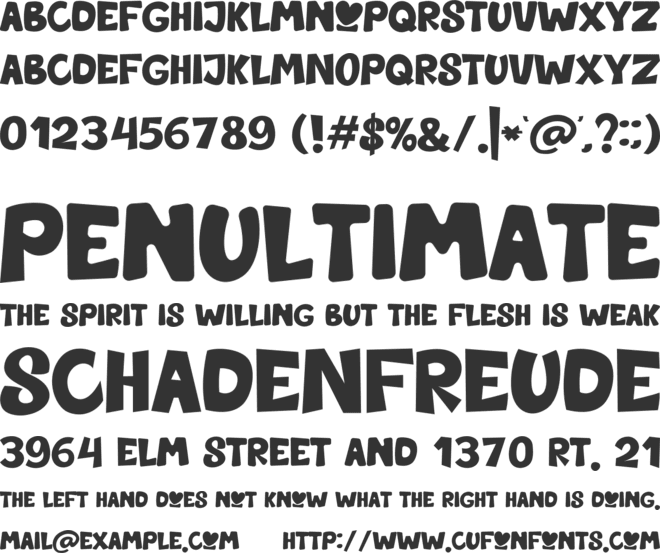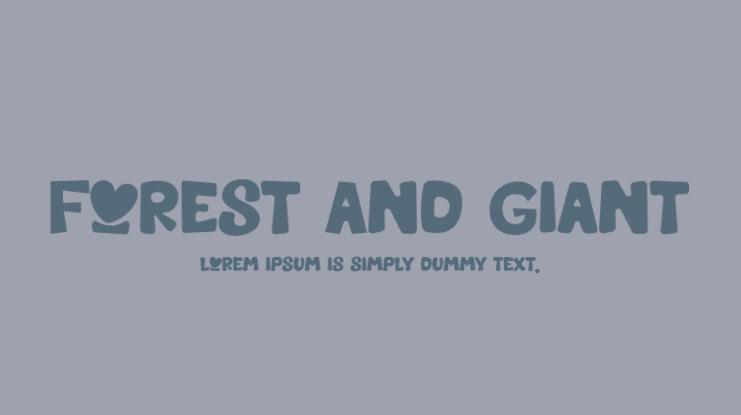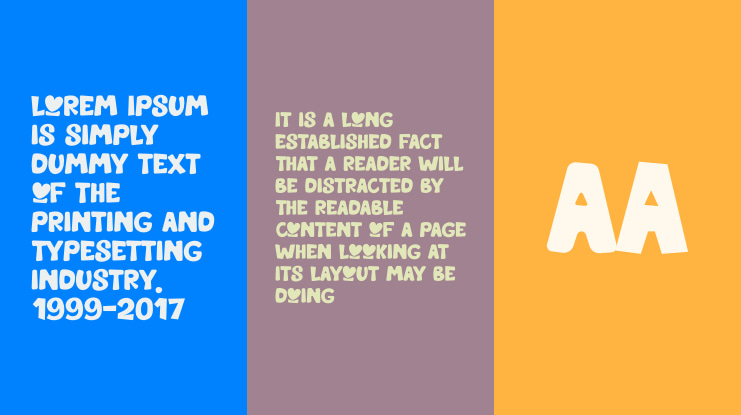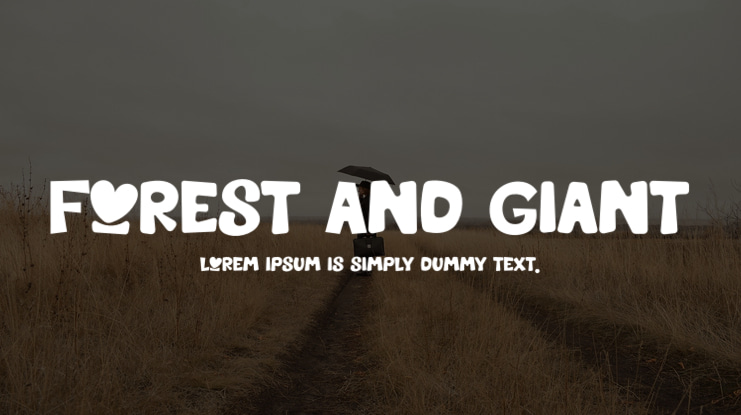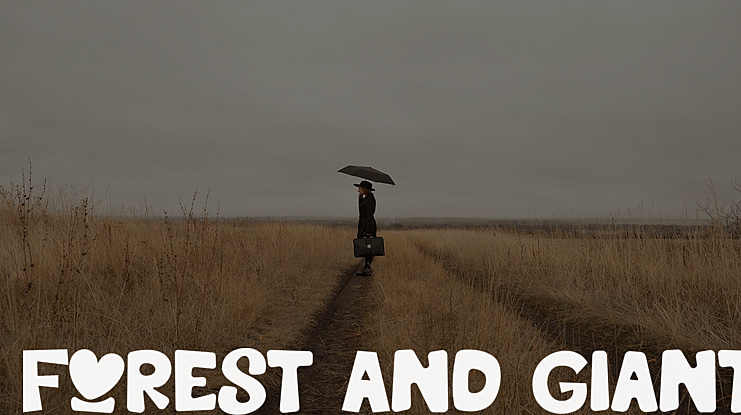
Forest And Giant Font
Aditya Rezki
This font is inspired from the big giant creature, that still mistery until now, it's called YETI
but on this font, YETI not in snow, but in the jungle, because YETI in this font now, try to save the jungle
from greedy human !! help him to save our jungle, so the air so that the air remains cool until
our children and grandchildren are born